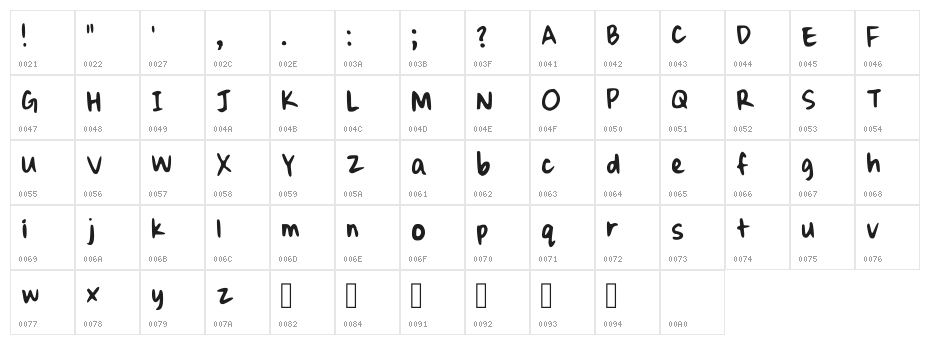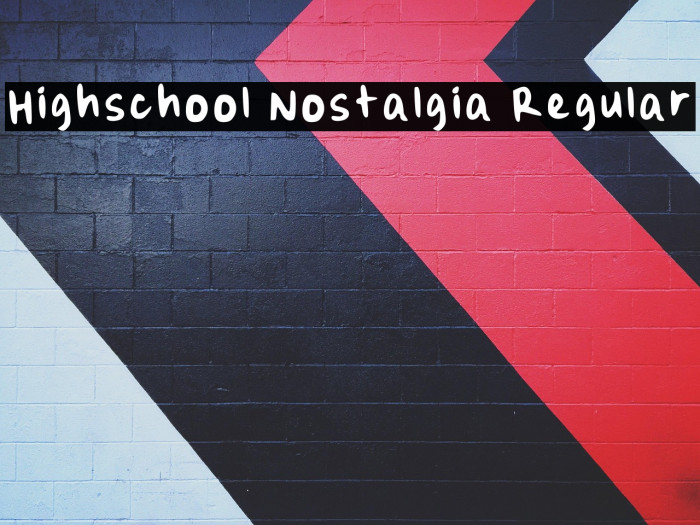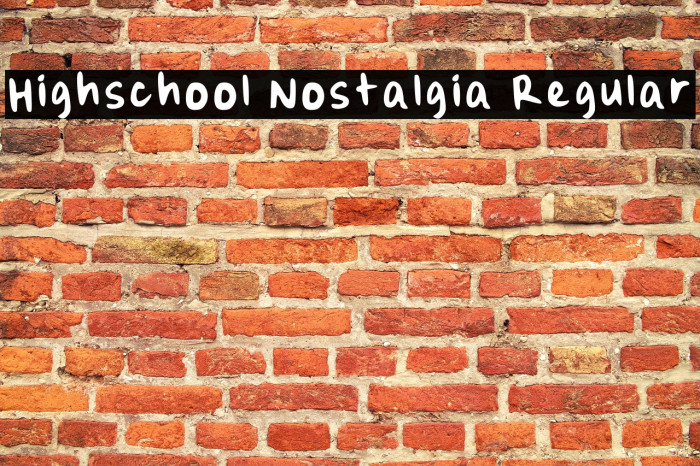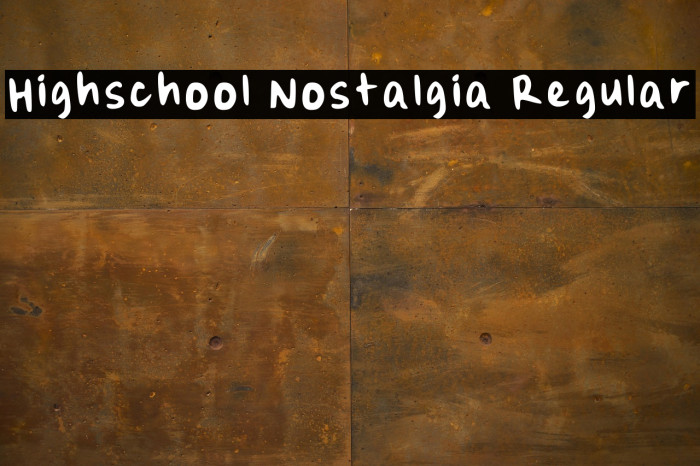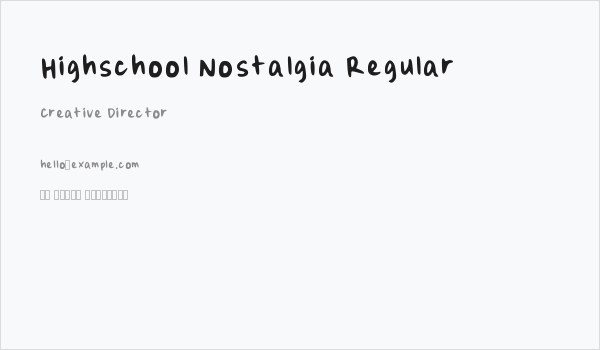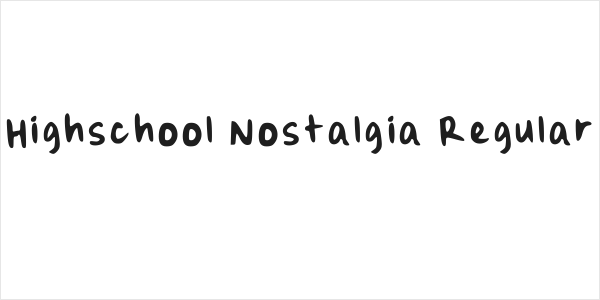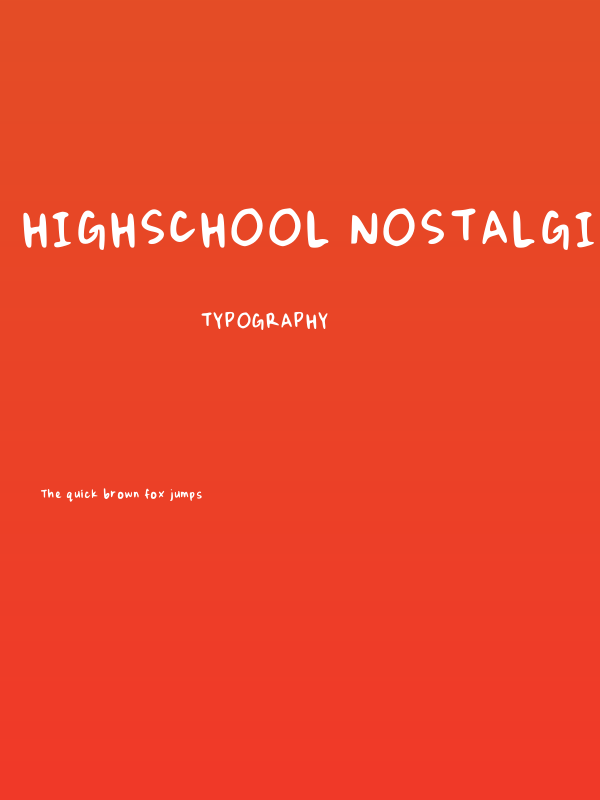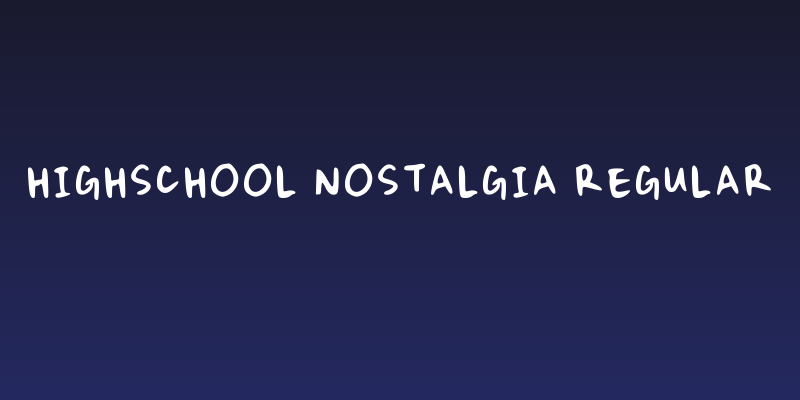
Highschool Nostalgia Regular Font
Highschool Nostalgia Regular Description
A playful, handwritten font with a casual and friendly appearance, featuring slightly irregular strokes and rounded edges.
| Overall Style | Playful, Casual |
| Proposed Projects | Greeting cards, children's books, informal invitations. |